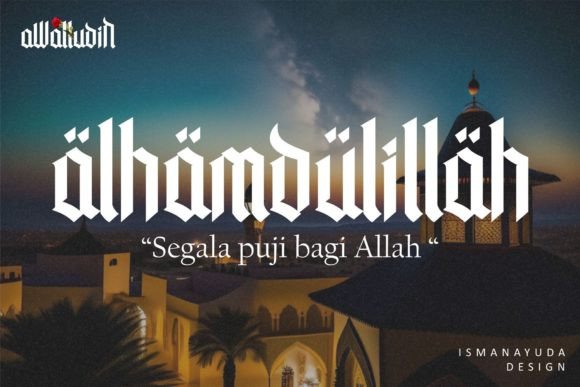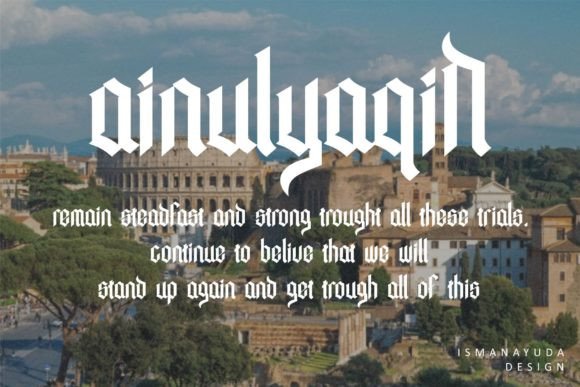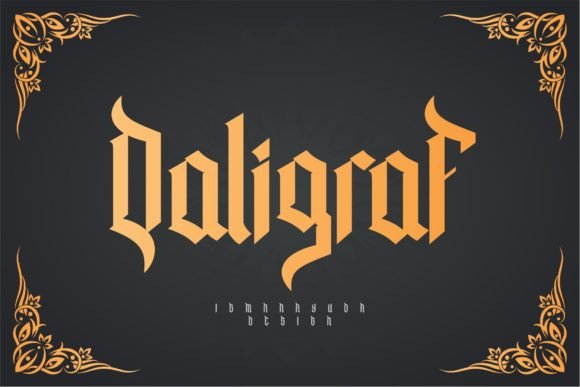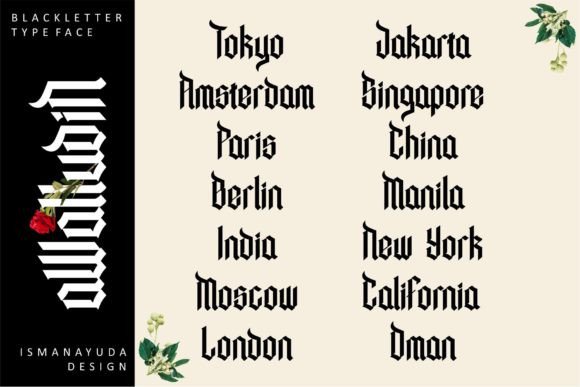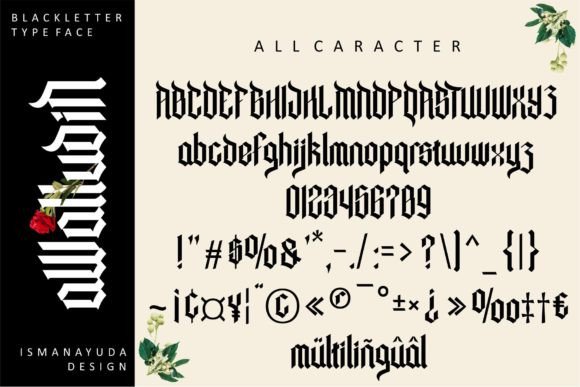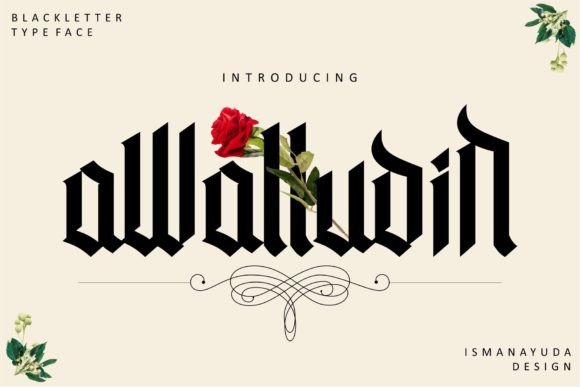
Awaludin Font: A Unique Black Letter Style with an Eastern Twist
In the world of typography, fonts play a crucial role in conveying the tone and personality of a brand or design. For designers and crafters, finding the perfect font that stands out from the crowd can be a daunting task. This is where the Awaludin Font comes in – a distinctive black letter style font with an Eastern feel that’s perfect for clothing brands, band names, and religious display purposes.
The Inspiration Behind Awaludin Font
This time, we created a font with unique characters that are also fun to use. The Awaludin Font is a result of careful craftsmanship, blending traditional black letter styles with Eastern influences. The font’s design is inspired by the rich cultural heritage of the East, making it an excellent choice for designers looking to add an exotic touch to their work.
Characteristics of Awaludin Font
The Awaludin Font boasts a range of characteristics that set it apart from other fonts. Its black letter style gives it a bold and dramatic look, while the Eastern feel adds a touch of elegance and sophistication. The font features:
- Unique and intricate character designs
- Bold and dramatic black letter style
- Eastern influences for a distinctive look
- Perfect for clothing brands, band names, and religious display purposes
Uses of Awaludin Font
The Awaludin Font is incredibly versatile and can be used in a variety of design projects. Here are some ideas to get you started:
- Clothing Brands: Use the Awaludin Font to create bold and eye-catching logos, labels, or packaging for your clothing brand.
- Band Names: Add an edgy touch to your band’s branding with the Awaludin Font’s unique character designs.
- Religious Display Purposes: The font’s Eastern feel makes it perfect for use in religious displays, such as mosque or temple signage, Islamic art, or Christian worship materials.
- Stationery and Greeting Cards: Add a touch of elegance to your stationery or greeting cards with the Awaludin Font’s bold and intricate designs.
Why Choose Awaludin Font?
With so many fonts available, why choose the Awaludin Font? Here are just a few reasons:
- Unique Design: The Awaludin Font’s distinctive character designs will set your work apart from others.
- Versatility: The font can be used in a range of design projects, from clothing brands to religious displays.
- Eastern Influence: Add an exotic touch to your designs with the font’s Eastern feel.
In conclusion, the Awaludin Font is a unique and versatile font that’s perfect for designers and crafters looking to add a touch of elegance and sophistication to their work. With its bold black letter style and Eastern feel, this font is sure to make your designs stand out from the crowd. Whether you’re working on a clothing brand, band name, or religious display project, the Awaludin Font is an excellent choice.